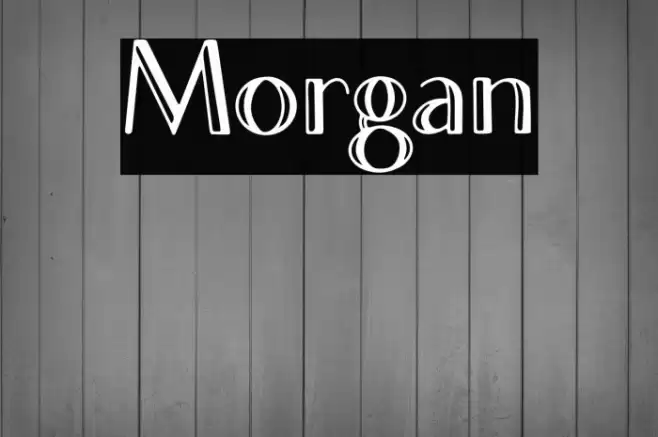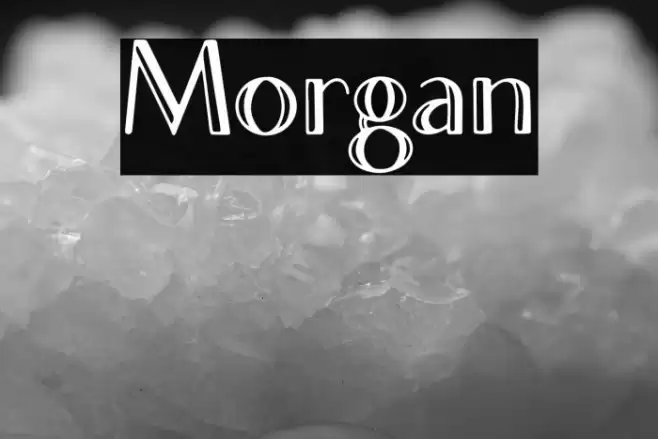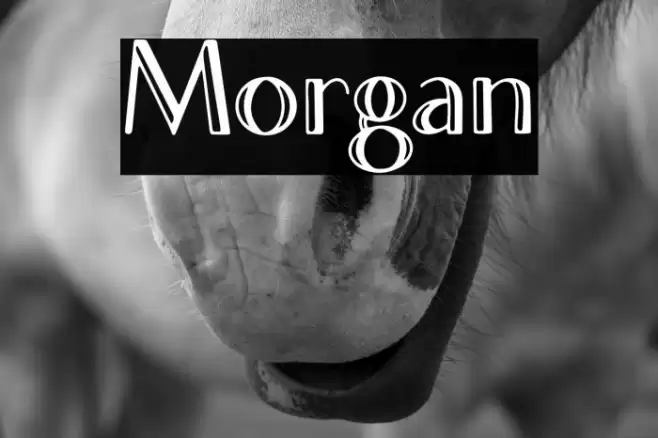
Morgan Font
Morgan Description
This font features a unique blend of modern and vintage elements, characterized by its decorative and artistic flair. The uppercase letters are bold and striking, with a mix of thick and thin strokes that create a dynamic visual contrast. The lowercase letters maintain a playful and whimsical style, with curves and loops that add a touch of elegance. Numbers and special characters follow the same artistic theme, making them stand out with their distinctive shapes. The overall design is both eye-catching and versatile, suitable for a variety of creative projects.
A decorative font with a blend of modern and vintage styles, featuring bold contrasts and artistic flair from Regular fonts.
- Proposed Projects: Ideal for branding, logo design, posters, and creative headlines that require a distinctive and artistic touch.
- Overall Style: Modern, Vintage, Decorative